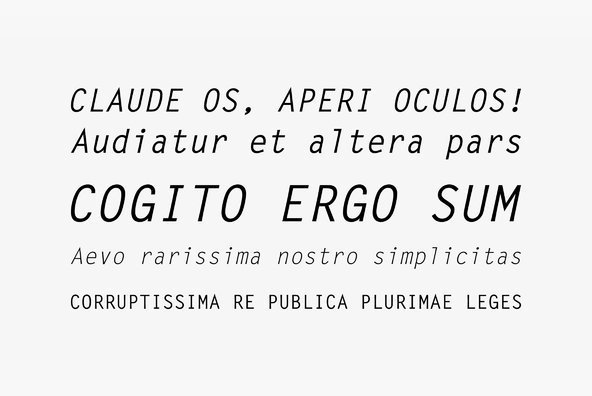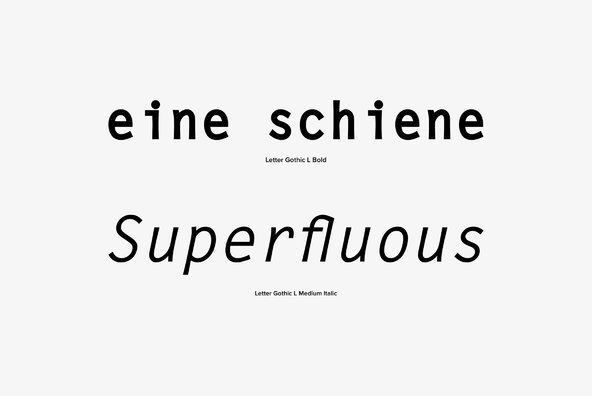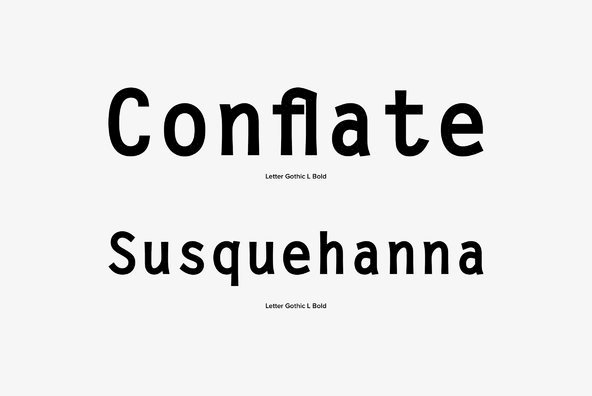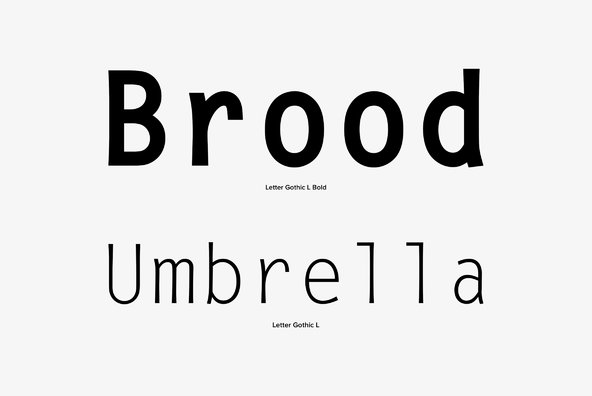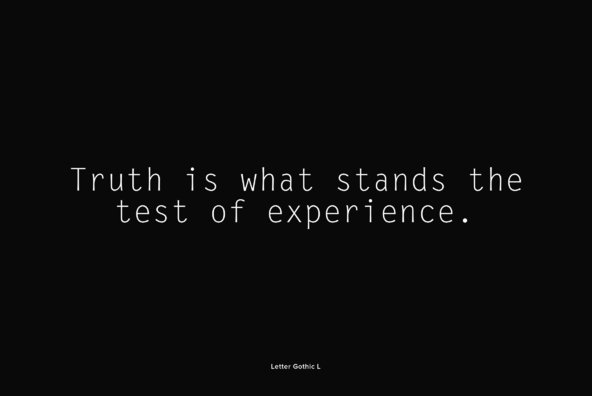
Letter Gothic
Letter Gothic is a minimal, clean monospaced sans-serif typeface, originally designed for use by IBM. This modern version was published by URW and designed by Roger Robertson (URW Studio) in 1993.